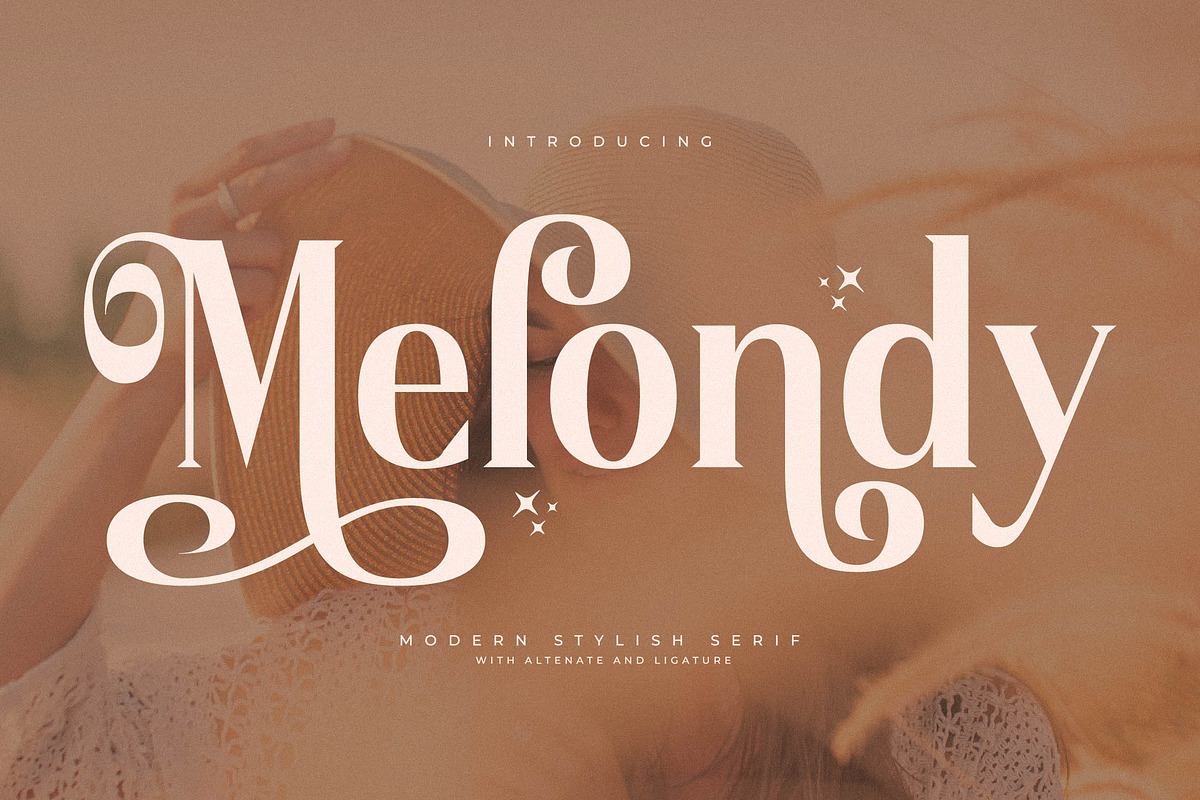
Melondy Modern Stylish Serif Font Free Download is an elegant and contemporary serif typeface that combines classic design with modern sophistication. With its clean lines, stylish serifs, and balanced proportions, Melondy is perfect for high-end branding, fashion design, editorial layouts, logos, and more. Its timeless appeal ensures that it can be used across a variety of design projects, from luxury product packaging to upscale websites and invitations.
The modern twist on traditional serif fonts gives Melondy a refined yet fresh look, making it ideal for any project that requires a stylish and polished appearance.